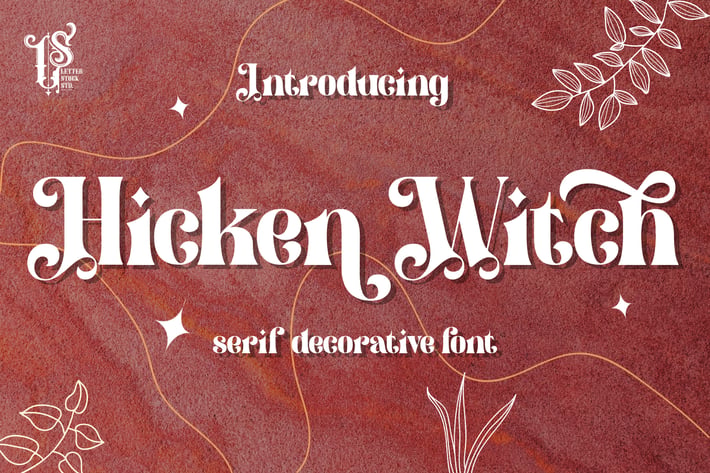
Hicken Witch - Decorative Font
Hicken Witch
This pair was inspired by poster design that i saw on street, It was crafted by hand specially to add natural handmade feeling in its brand identity than i make it clean with pentool.
If you need a decorative serif font style, Hicken Witch font is great choice for you to make your design looks better and unique.
Opentype features
Hicken Witch font has 209 character set included
Hicken Witch Font is very good looking in logo, movie poster design, youtube thumbnail, labels, product packaging, invitations, advertising and others.
Multilingual support (Western European characters).
This decorative serif fonts works with folowing languages: